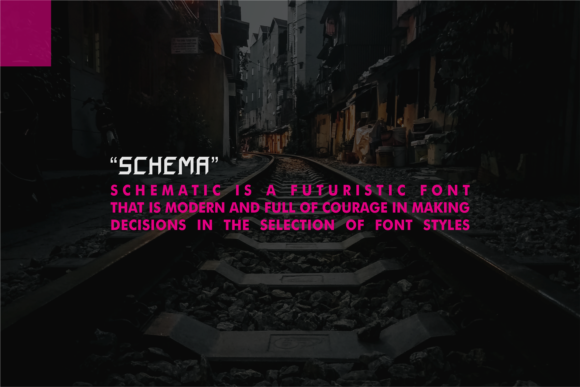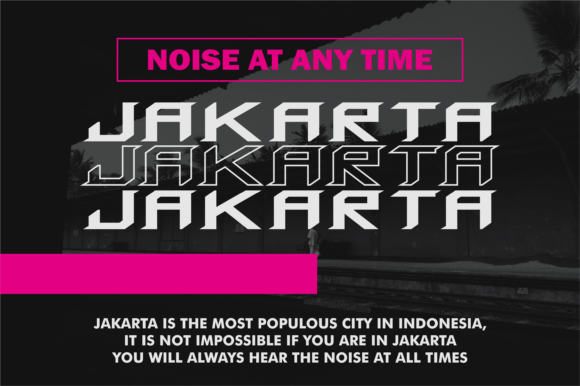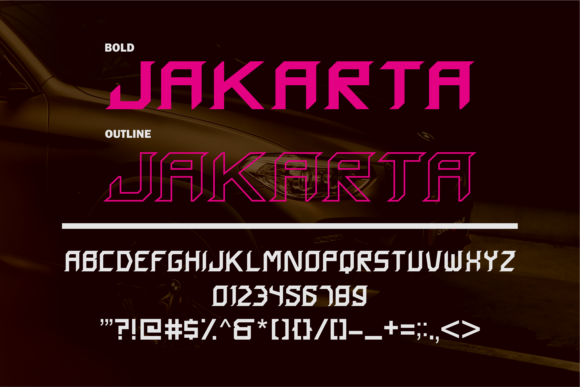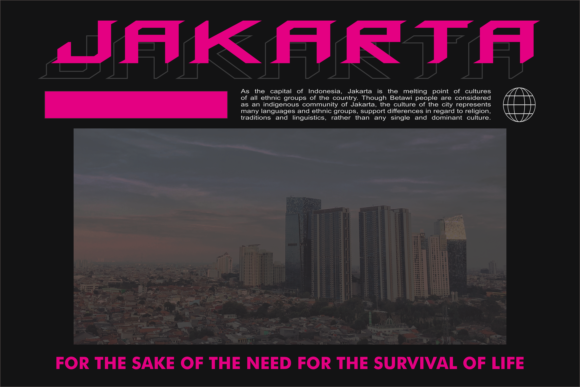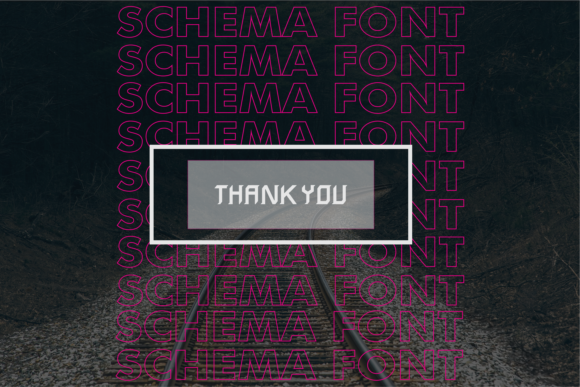
Introduction to Schema Font
Have you ever stared at a blank canvas, waiting for inspiration to strike? For many creatives, that moment of blankness is the spark that sets their imagination ablaze. It’s in those moments that we discover new design resources that elevate our projects to the next level. For designers looking to add a touch of boldness to their work, the Schema Font is a game-changer.
This cool, thick-lettered display font is a high-quality design resource that’s perfect for posters, flyers, and prints. With its transparent background, Schema Font offers endless possibilities for creative expression. Whether you’re working on a personal project or a commercial design, this versatile font is sure to make your work stand out.
In this article, we’ll delve into the world of Schema Font and explore its many benefits for designers. From its unique aesthetic to its ease of use, we’ll cover everything you need to know to unlock the full potential of this incredible design resource.
Key Features of Schema Font
- High-quality font design, suitable for creative projects and professional use
- Includes a range of glyphs and characters, ensuring comprehensive support for your creative project
- Unique, modern design that adds a touch of sophistication to any creative project
Honest Review: Schema Font
I recently came across the Schema Font, and I must say it’s a fantastic addition to any designer’s toolkit. As a creative project enthusiast, I appreciate high-quality fonts that can elevate my designs. The Schema Font does just that.
- High-quality design: The Schema Font is meticulously crafted, making it perfect for any creative project.
- Transparent background: This feature allows for seamless integration with various design elements.
- Unique style: The font’s distinctive design sets it apart from other fonts in my collection.
- Limited character set: The Schema Font doesn’t include a comprehensive character set, which might be a drawback for some designers.
- Not suitable for all projects: While the font is excellent for certain creative projects, it may not be the best choice for others due to its unique style.
Overall, I’m impressed with the Schema Font. Its high-quality design, transparent background, and unique style make it an excellent resource for designers. While it has some limitations, I believe it’s a valuable addition to any design toolkit.
How to Use Schema Font
Schema Font is a high-quality design resource that offers a wide range of creative project possibilities. Its transparent background and versatility make it an ideal choice for various design applications.
Schema Font is commonly used in brochures, flyers, and other marketing materials. It’s also great for creating presentations, reports, and other documents.
Tips for Getting the Most Out of Schema Font
Experiment with different font sizes and colors to create a visually appealing design. You can also combine Schema Font with other design elements to create a unique look.